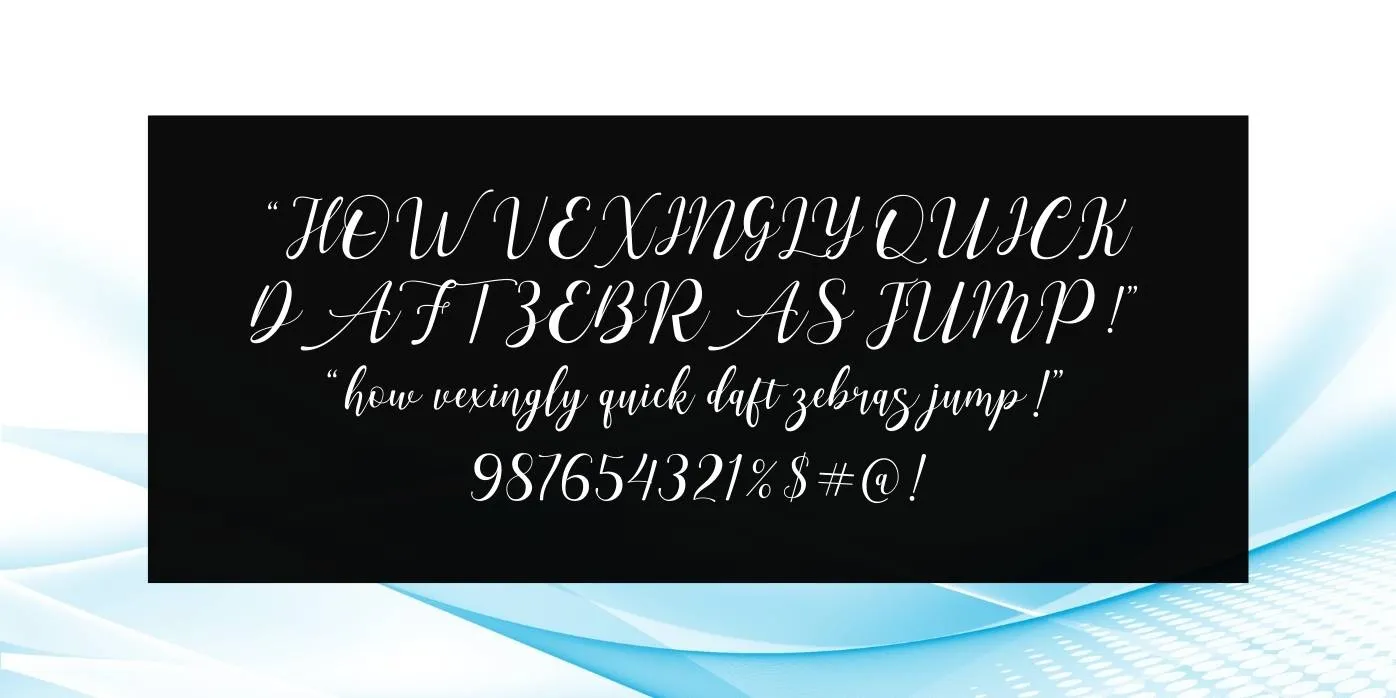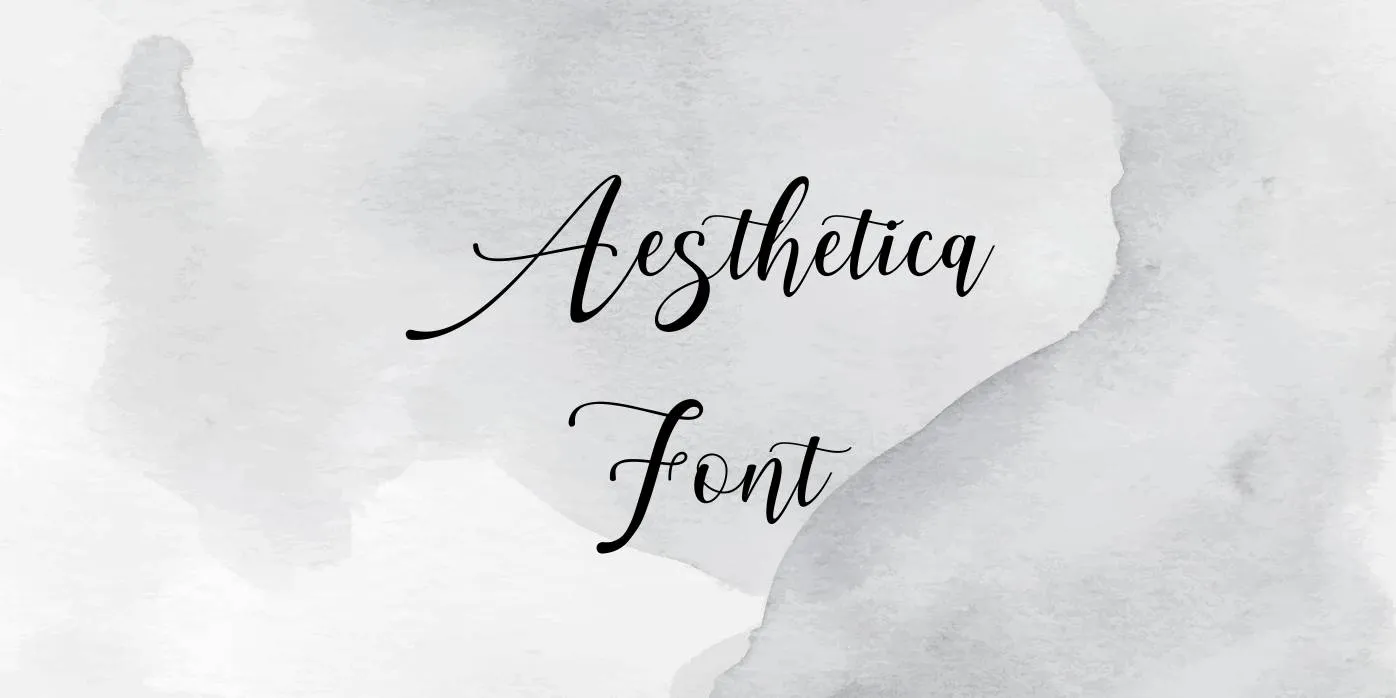
Aesthetica Font
Aesthetica font is a modern calligraphy typeface that is designed and published by Java pep. That typeface is perfect to design a beautiful website especially used for creating an e-commerce website or a fun personal blog website. That typeface family has 1 style available only. Aesthetica is something stylish, beautiful, and eye-catchy font style.
Its typeface is used in the headlines of your website so it makes your website unique. And the designers predict that trend in the design market for this year is handwritten and drawn designs because if you want to add some amazing, DIY touch to design, so add these type fashionable hand-writing typefaces. Now, If you can go to the past and write each and every typographic character by hand. But it will become much more difficult.
So the idea is to download that type of quality font to showcase your beautiful design talent to the world. And that is a typeface that is usable in amazing wedding invitation cards, greeting cards, and other designs that need a calligraphy touch. In the market, much more alternatives are available for this font but the closet for this typeface is better doctor signature font. Usage That typeface will look eye-catching visuals to users, and this font is best for website designing That typeface makes the website perfect and unique.
And that font is always perfect for greeting cards, Branding, Logo fonts, Designing monograms,s, etc. In the designing market, All your design is based on your font and color themes. So, designers love to design greeting cards or monograms,s, etc. If designers design a signature type logo so that typeface is the best design signature logo.
What font is similar to Aesthetica? There are many typefaces that are similar to that font. But Looking at the stylish design and Calligraphy So there are some that are closest to that font Such as a chocolate milky font and better signature font. Aesthetica Font is best for designing?